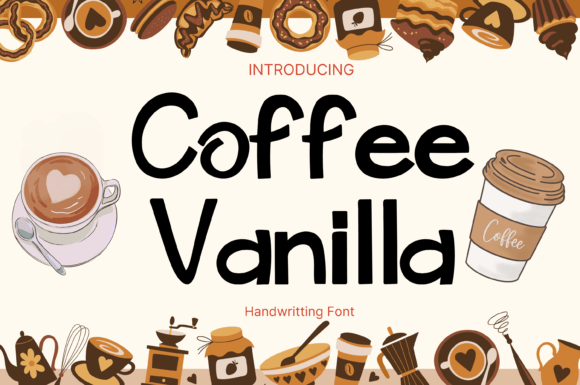
Introducing Coffee Vanilla Font, a handwritten font that exudes charm and sophistication. Its whimsical and clean strokes evoke the cozy warmth of a freshly brewed cup of coffee with a hint of vanilla sweetness.
Immerse yourself in the world of creativity with Coffee Vanilla Font. Its elegant curves and dynamic letterforms dance across the page, inviting you to weave your own enchanting stories. Whether you're crafting heartfelt letters, captivating social media posts, or designing eye-catching branding, this font will ignite your imagination.
Coffee Vanilla Font is an essential addition to the toolkit of any designer or content creator seeking to evoke a sense of warmth, friendliness, and creativity. Its versatility knows no bounds, seamlessly complementing a wide range of projects, from personal notes to professional presentations.
With Coffee Vanilla Font, your words will not only be read but savored. Its delicate touch adds an air of refinement to any project, leaving a lasting impression on your audience. Indulge in the joy of writing and design with Coffee Vanilla Font, and embark on a creative journey where your imagination knows no limits.